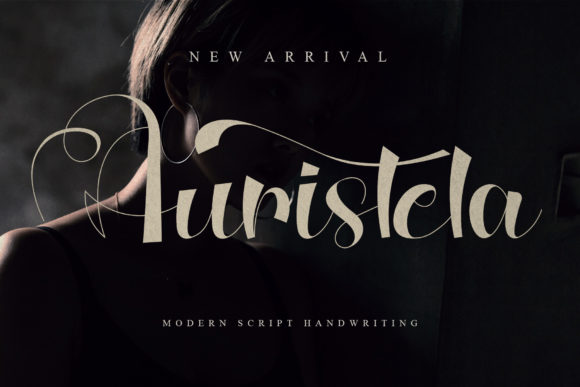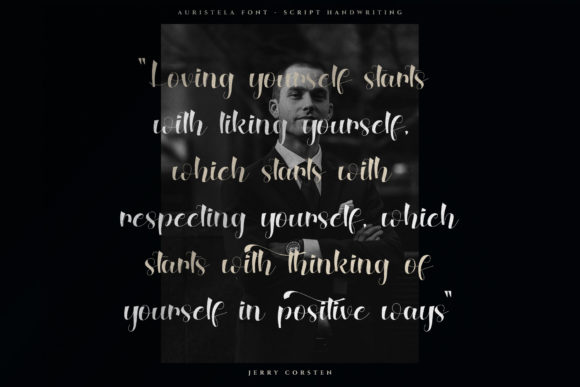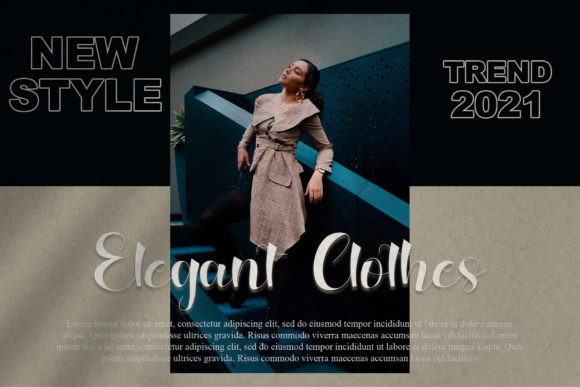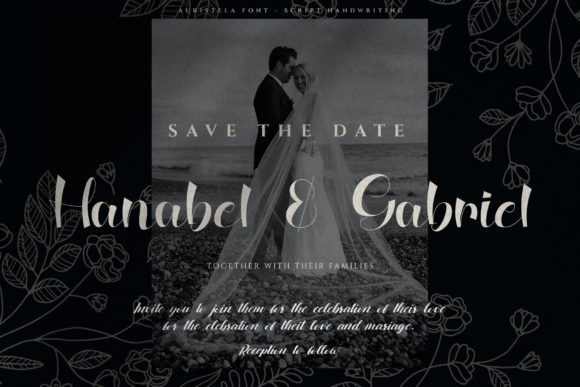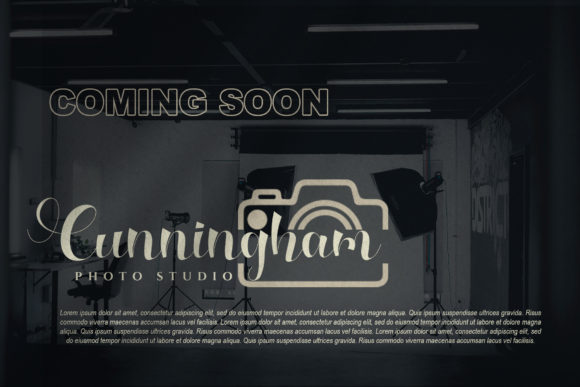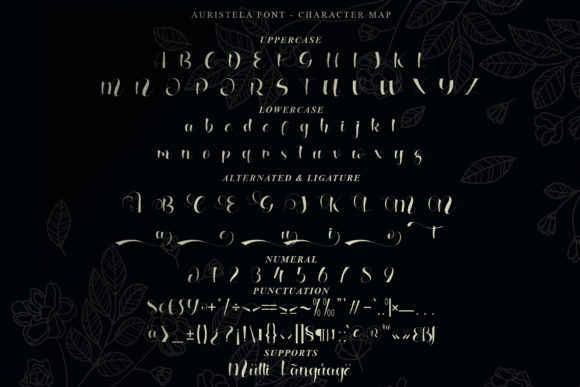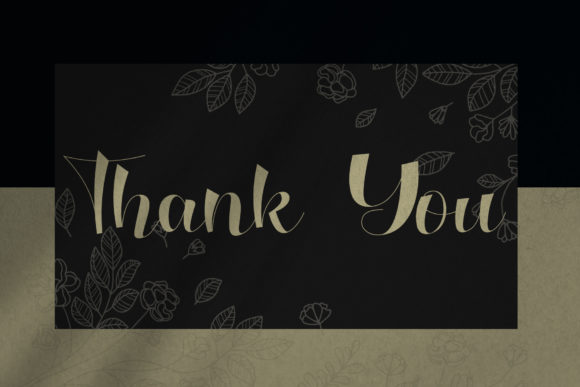
Auristela Font
About Auristela Font
Auristela is a lovely script font featuring charming, playful characters that seem to dance along the baseline. Add this font to your most creative ideas, and notice how it makes them stand out!